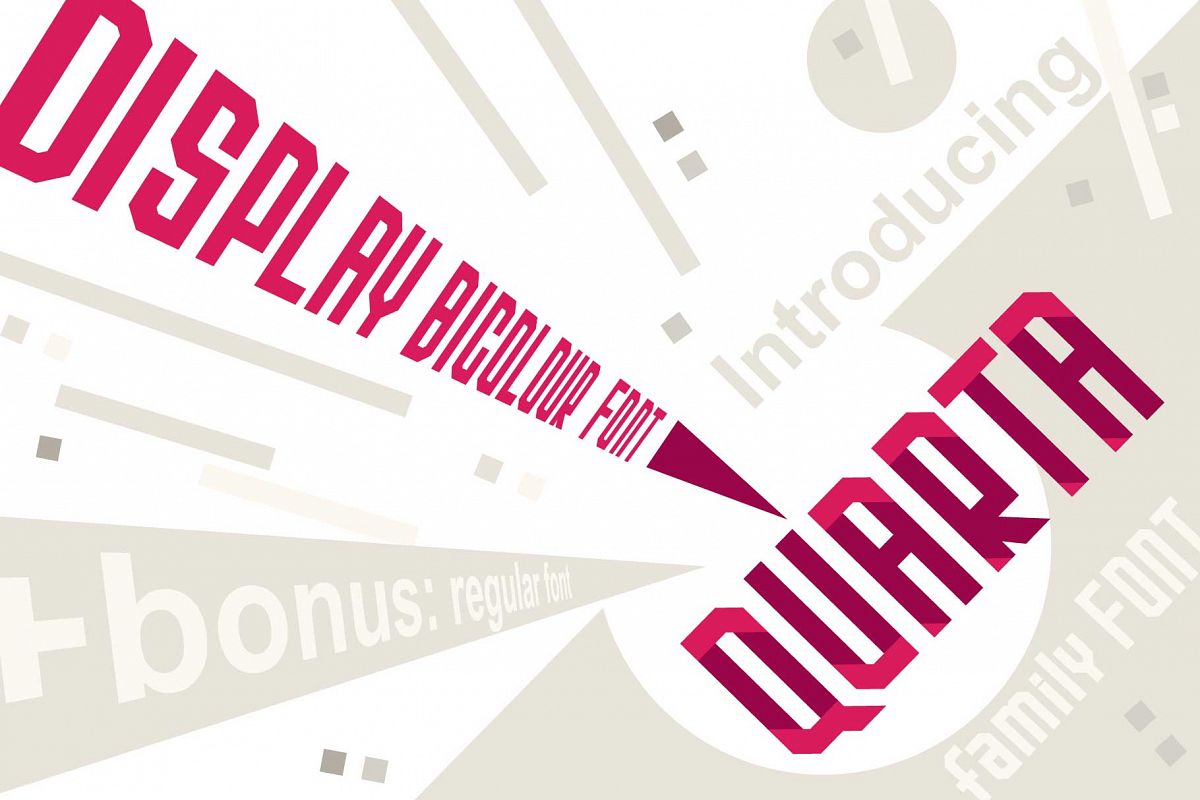
Quarta font family
QUARTA
QUARTA-Color
Quarta bicolor OTF font.
Modern display colorful grotesque
sans-serif font.
It’s a
stunning geometric display bicolor font in Suprematism style, perfect for
completely contemporary designs that need a color block appeal. This gorgeous
enough to suit all your design needs. It works best for logotypes, signage, and
advertising, modern posters and branding, web and other
Contains CAPITALS
With
multicolor OTF font, you can type multicolor text.
Bonus:
Colorful vector alphabet, numerals and punctuations. With multicolor Vector alphabet,
you can manipulate letters in form of vector shapes in Illustrator i.e.